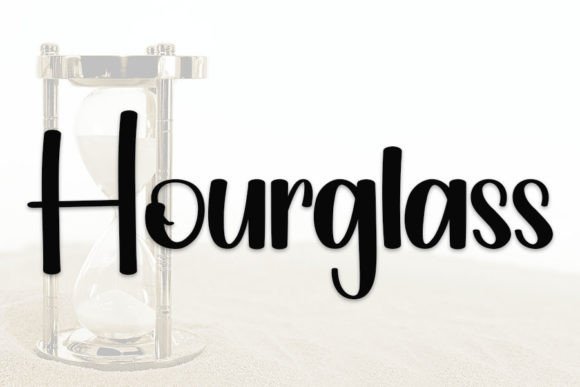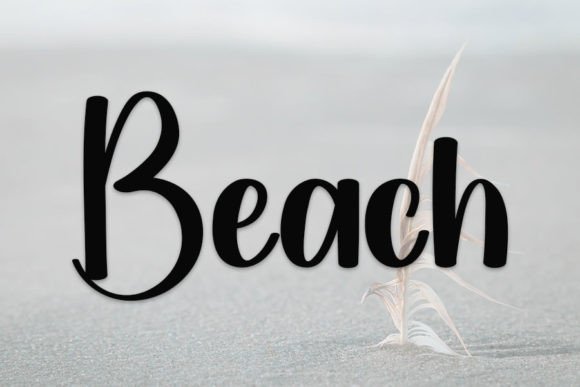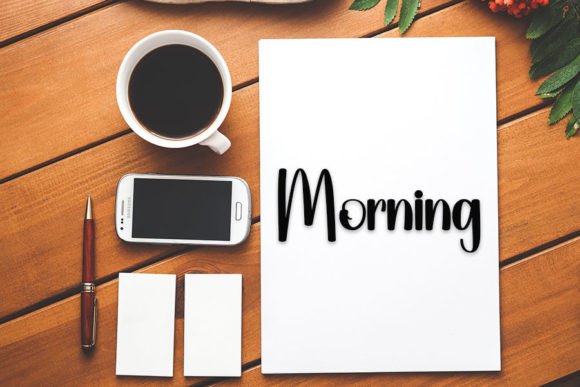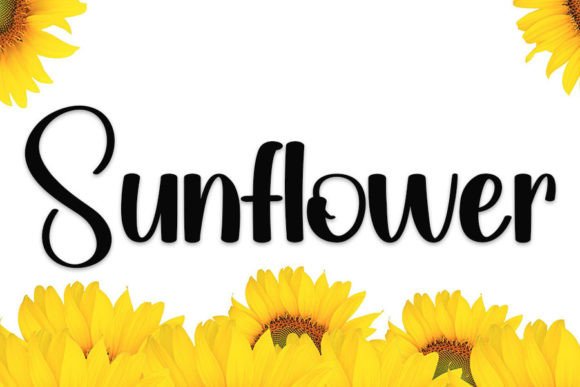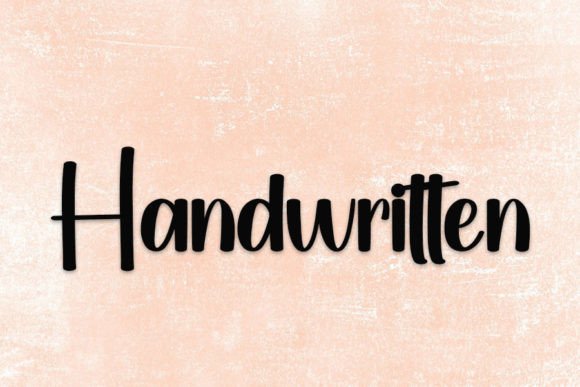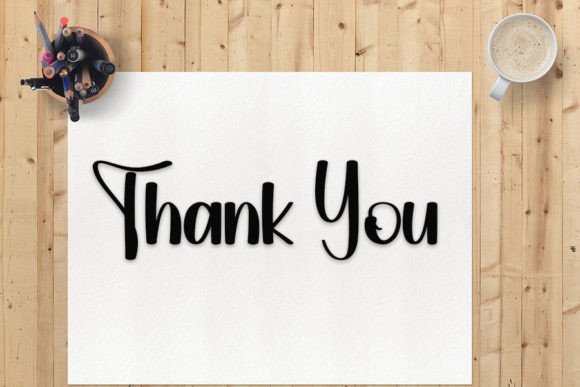
Discover the Elegance of Ending Font: Elevate Your Designs with Timeless Style
Are you on the hunt for a font that adds a touch of elegance and sophistication to your designs? Look no further than the Ending Font, a beautiful handwritten font that is sure to capture your heart. With its distinct and timeless style, Ending Font is perfect for designers and crafters looking to create stunning visuals that leave a lasting impression.
The Beauty of Ending Font
Ending Font is a neat and beautiful handwritten font that boasts an elegant touch, making it ideal for a wide range of projects. Whether you’re working on a branding campaign, a wedding invitation, or a social media graphic, this font is sure to add a level of sophistication and refinement to your design. Its incredibly distinct and timeless style sets it apart from other fonts, making it a versatile choice that can be used in various contexts.
What Makes Ending Font So Special?
So, what makes Ending Font so special? Here are just a few reasons why designers and crafters are falling in love with this beautiful font:
- Elegant Touch: Ending Font has an undeniable elegance that makes it perfect for designs that require a level of sophistication.
- Timeless Style: Unlike trendy fonts that quickly go out of style, Ending Font has a timeless quality that ensures your designs will remain stylish for years to come.
- Distinctive: With its unique and distinctive style, Ending Font is sure to make your designs stand out from the crowd.
- Versatile: Whether you’re working on a digital project or a print design, Ending Font is versatile enough to be used in various contexts.
How to Use Ending Font in Your Designs
Now that you’re eager to get started with Ending Font, here are some tips on how to use it effectively in your designs:
- Pair it with Other Fonts: Ending Font pairs beautifully with other fonts, so don’t be afraid to experiment with different combinations to create visual interest.
- Use it for Headings and Titles: The elegant and distinctive style of Ending Font makes it perfect for headings and titles, where you want to make a bold statement.
- Add it to Your Branding: If you’re looking to elevate your brand’s visual identity, consider incorporating Ending Font into your branding materials, such as your logo, business cards, or website.
Why Designers and Crafters Love Ending Font
Designers and crafters are raving about Ending Font, and it’s easy to see why. Here are just a few reasons why this font has become a favorite among creatives:
- Easy to Read: Despite its elegant and cursive style, Ending Font is surprisingly easy to read, making it perfect for designs that require a level of legibility.
- Highly Versatile: Whether you’re working on a personal project or a client brief, Ending Font is versatile enough to be used in various contexts.
- Beautiful and Elegant: Let’s face it – Ending Font is simply beautiful and elegant, making it a joy to work with.
In conclusion, Ending Font is a stunning handwritten font that is sure to elevate your designs with its timeless and elegant style. With its distinct and versatile qualities, it’s perfect for designers and crafters looking to create spectacular visuals that leave a lasting impression. So why wait? Fall in love with Ending Font and take your designs to the next level!
- Ending Font is a beautiful handwritten font with an elegant touch.
- It has a timeless style that ensures your designs will remain stylish for years to come.
- It’s versatile and can be used in various contexts, from digital projects to print designs.
- It’s perfect for designers and crafters looking to add a level of sophistication to their designs.